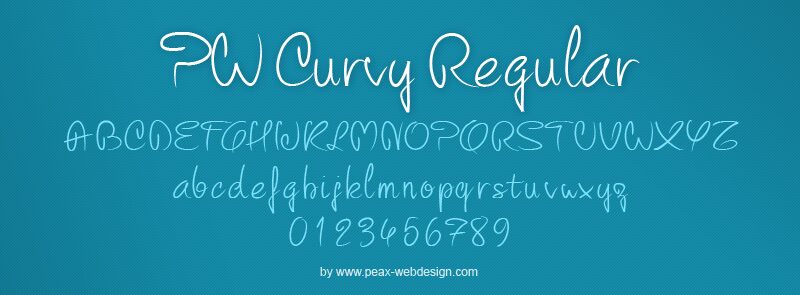
PW Curvy is a free handwritten font with airy monoline strokes and dramatically stretched loops. Its uneven widths, oversized curves, and long crossing strokes resemble a quick personal signature.
Those sweeping contours can echo loose fashion sketches or line drawings on boutique branding and cosmetics packaging. The intimate, informal lettering also fits wedding invitations and personal stationery. Its strongest context is contemporary lifestyle design, especially fashion, beauty, and creative services.